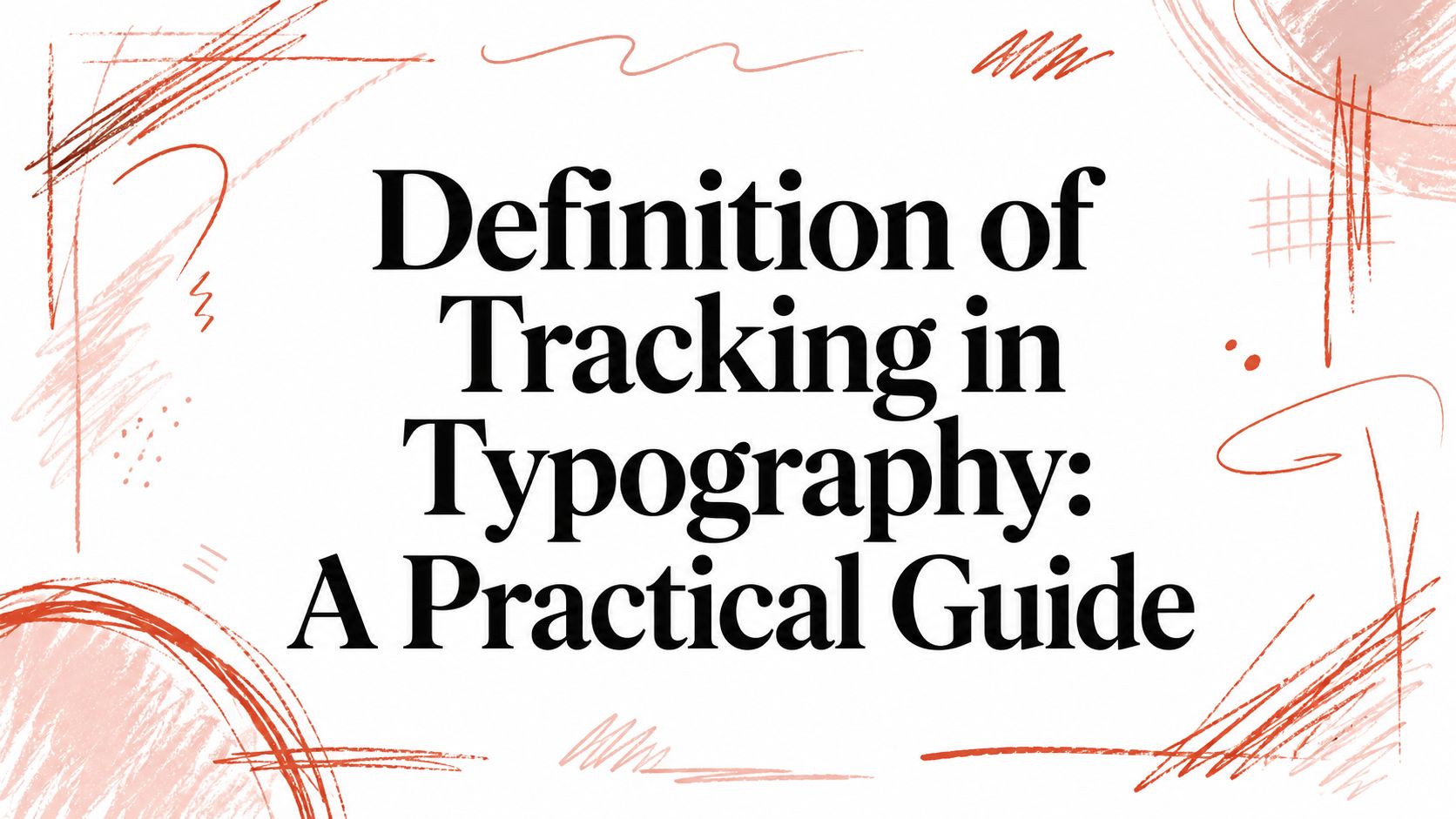
Tracking is the uniform adjustment of horizontal space between all characters in a selection of text. A value of +50 increases the space between each letter, while -50 compresses it, which changes the overall density and readability of the text.
If you're looking at a headline that feels cramped, a navigation label that looks oddly loose, or a live page that doesn't quite match the comp, you're already dealing with tracking. It is treated as a visual polish step. In practice, tracking affects readability, accessibility, rendering behavior, and even whether your font use stays inside the license terms your business holds.
An Introduction to Typographic Spacing
Tracking sounds narrow until you see where it shows up in real work. A brand team uses it to make a hero line feel premium. A developer maps it into CSS. A compliance reviewer asks whether the self-hosted font on the site is licensed for web use at all. One spacing decision reaches three different teams.
That's why the definition of tracking in typography matters beyond design vocabulary. It gives everyone the same baseline: tracking changes spacing evenly across a word, sentence, or paragraph, not pair by pair. Once that's clear, the trade-offs become easier to discuss in practical terms.
Why teams get this wrong
The most common failure isn't technical. It's organizational. Designers may adjust spacing in a layout tool, developers may recreate it approximately in code, and legal or procurement may never see that a desktop font was pushed into web production.
A small visual change can also create larger downstream questions:
- Accessibility impact: Tight or overly loose spacing can make text harder to read.
- Performance impact: Browser rendering can respond differently to aggressive spacing choices.
- Compliance impact: Desktop and web font licenses are not the same thing, and using the wrong one can create audit risk.
Typography choices don't stay in the design file. They travel into code, QA, performance budgets, and legal review.
What Is Tracking in Typography
Tracking controls the overall spacing texture of type. The cleanest definition comes from standard typographic usage: tracking in typography is the uniform adjustment of horizontal space between all characters in a block of text. It's different from kerning, which changes spacing between specific letter pairs, and it's commonly expressed in positive and negative increments. A value of +50 opens the spacing, while -50 tightens it, changing how dense and readable the text feels as a whole, as described in this tracking reference.
A simple way to picture it
Think of letters like cars moving in a line. Kerning moves one car closer to or farther from the next car to fix a local gap. Tracking changes the spacing between all the cars in the line at once.
That's why tracking changes mood so quickly. Open tracking can make type feel airy, formal, or editorial. Tight tracking can make it feel compact, urgent, or crowded. Neither is automatically right. The question is whether the density matches the reading context.
Where tracking helps
Tracking is useful when the type needs a different overall rhythm than the font's default spacing provides.
A few common examples:
- All-caps headlines: Capitals often need more room to avoid looking congested.
- Short display text: A wordmark, hero phrase, or oversized pull quote may need spacing adjustment to look balanced.
- Tight layouts: Sometimes teams reduce tracking slightly to fit a line without changing size or wrapping.
Where it goes wrong
Tracking fails when it becomes a patch for other problems. If body copy looks weak, the underlying issue may be font choice, line length, weight, or line height. Tracking won't fix all of that.
Practical rule: Use tracking to shape the texture of text, not to rescue a bad layout.
When teams understand that, they stop treating tracking like a magic slider. It's a controlled, global spacing adjustment. That's exactly why it's powerful, and exactly why it needs restraint.
Tracking vs Kerning and Letter Spacing
The confusion usually comes from one word doing different jobs in different environments. Designers say tracking. Front-end developers often say letter spacing. Typographers still distinguish both from kerning.
The key distinction is straightforward. Tracking applies uniformly across entire words, sentences, or paragraphs, while kerning adjusts spacing only between specific letter pairs such as “A” and “V,” as outlined in this explanation of tracking versus kerning.
The definition of tracking in typography starts as a spacing concept. In production, it becomes a governance issue too. The smart move is to review typography as a connected system: design quality, accessibility, rendering behavior, and licensing together.